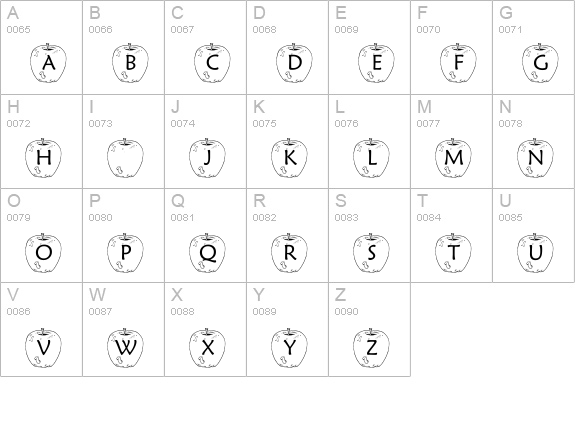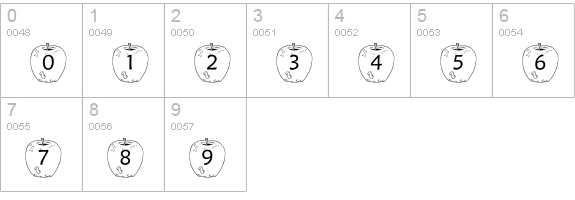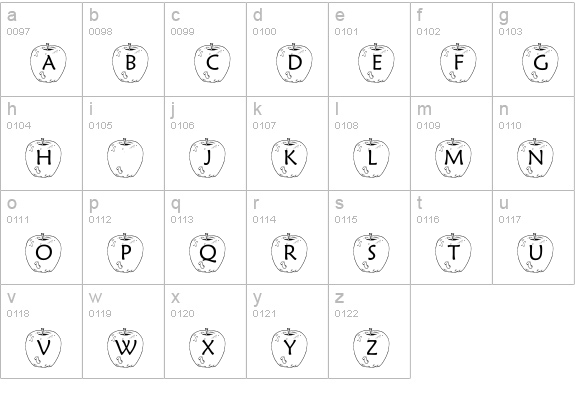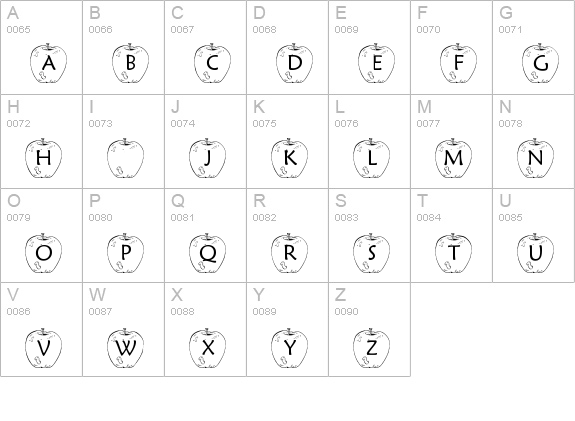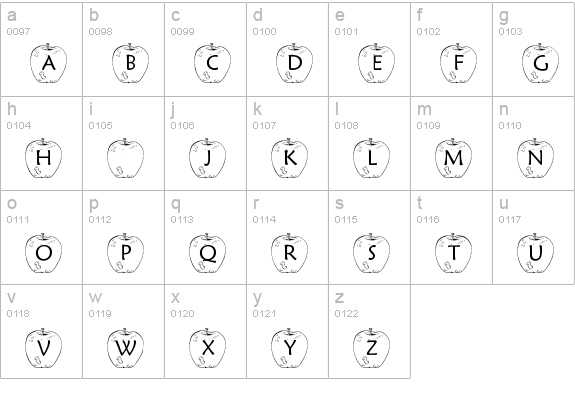
pf_WormyApple Font Details
Introducing pf_WormyApple, a playful and quirky font that brings a delightful twist to your designs. This font is like taking a bite out of a crisp, juicy apple, only to find a wriggly surprise waiting inside. With its unique and charming worm-like embellishments, pf_WormyApple adds a touch of whimsy and personality to any project. Designed with careful attention to detail, each letter is meticulously crafted to showcase the organic curves and loops reminiscent of a worm's path through the apple. The irregular shapes and varying sizes give pf_WormyApple a hand-drawn feel, making it perfect for adding a sense of authenticity and fun to your design work. Whether you're working on a children's book, a logo, a poster, or any other creative project, pf_WormyApple will surely stand out from the crowd. Its distinct character and lively nature make it ideal for capturing attention and injecting a sense of playfulness into your work. And the best part? pf_WormyApple is completely free! Yes, you read that right – this delightful font is freely available to download at FontsMarket.com. So, you can enjoy all the whimsical charm and creative possibilities without spending a dime. Download pf_WormyApple today and let your imagination run wild. Embrace the unexpected and add a dash of fun to your designs with this captivating font. Whether you're aiming to create a memorable logo, a vibrant poster, or simply want to infuse some playfulness into your everyday typography, pf_WormyApple is here to bring a smile to your face and a touch of magic to your design projects.